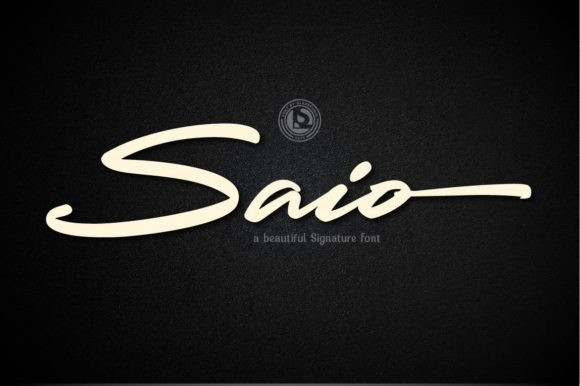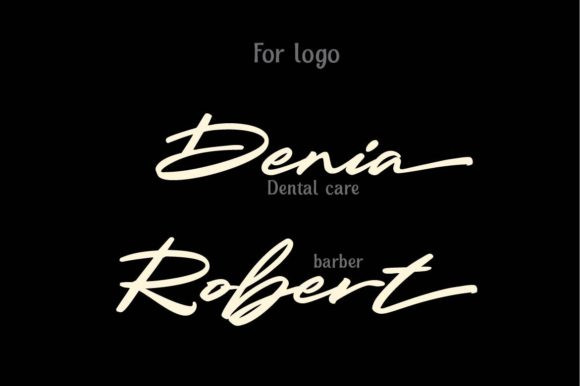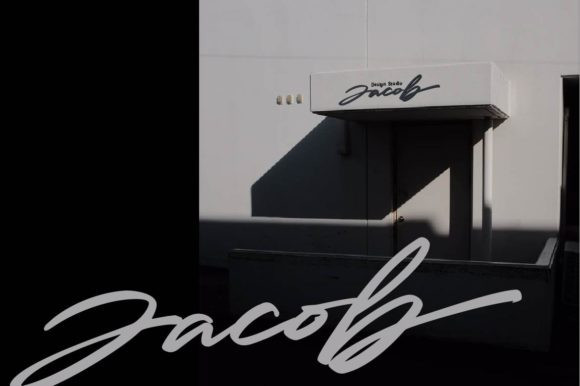
Saio Font
Saio is a beautiful paint brush script font, wonderful and cursive. It will look gorgeous on all your invitations, poster designs, book designs, branding materials, logos and so much more.